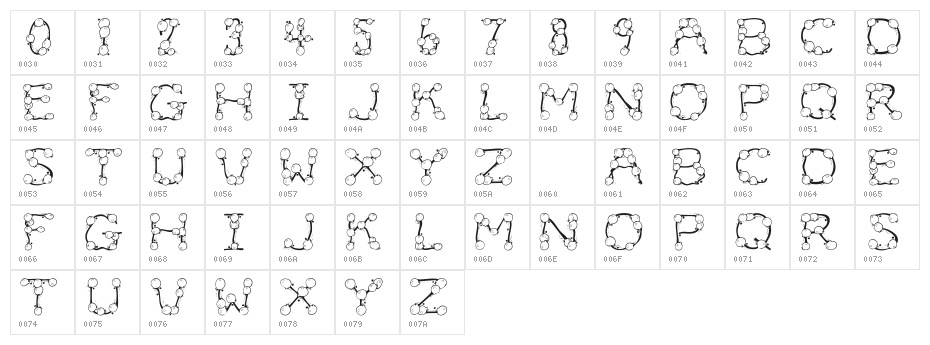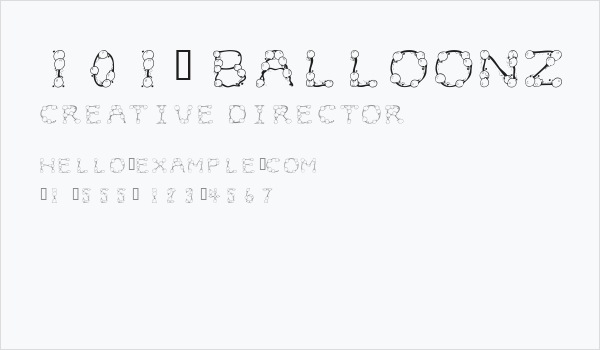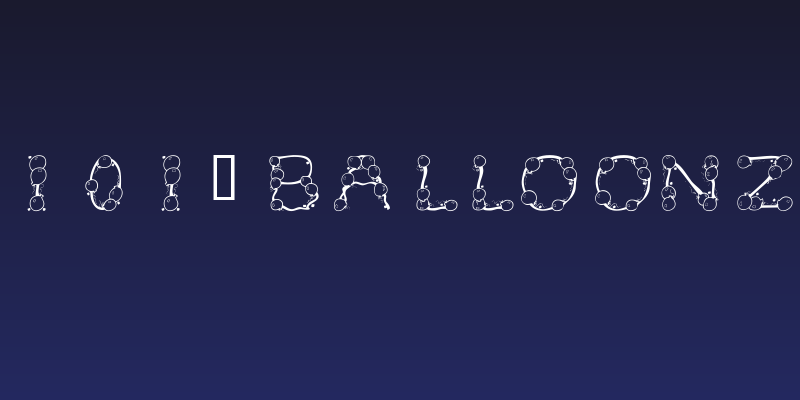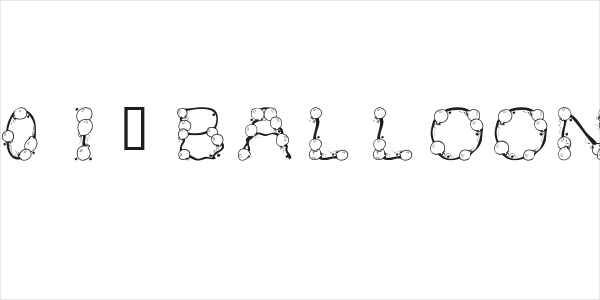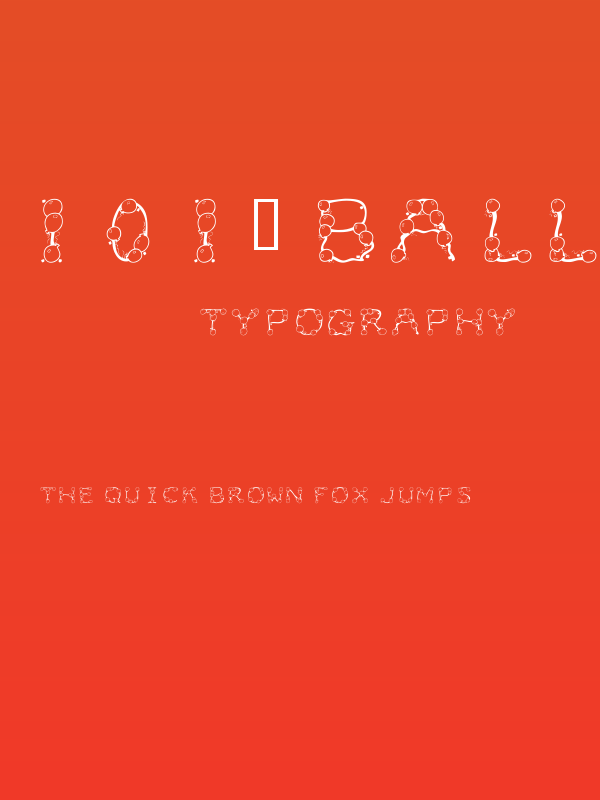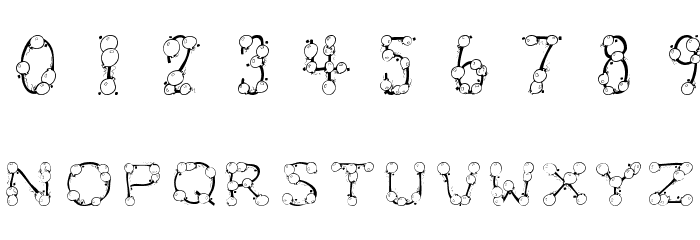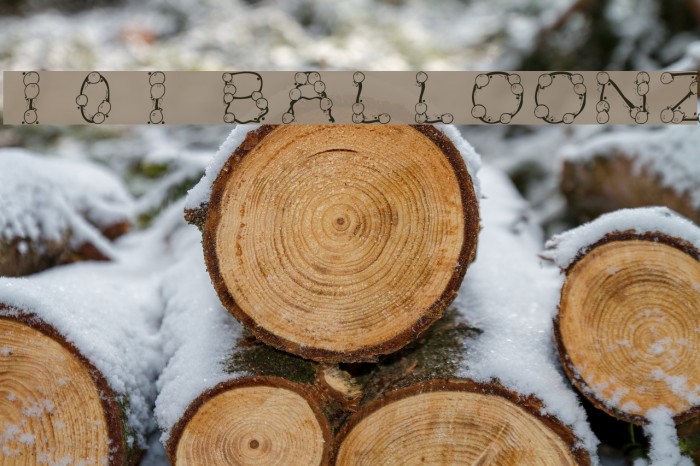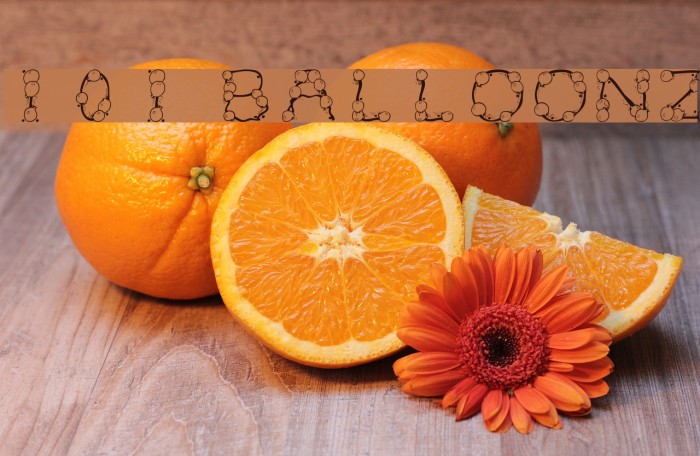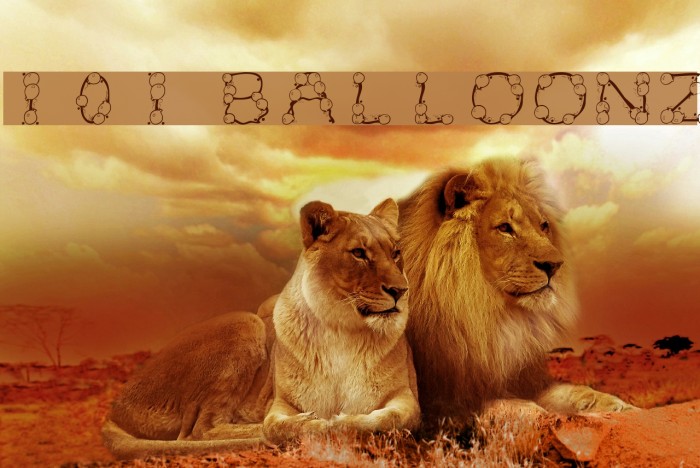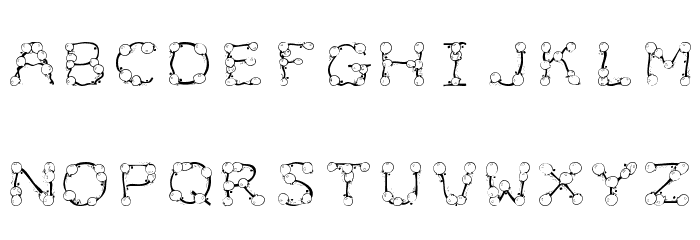
101! BalloonZ Font
101! BalloonZ Description
This playful and whimsical font features characters designed to resemble clusters of balloons. Each letter and number is composed of interconnected circular shapes, giving the impression of a festive and buoyant style. The font is characterized by its unique, decorative appearance, which makes it stand out in any design. The strokes are consistent in thickness, with a medium contrast that adds to the overall playful aesthetic. The spacing between characters is relatively normal, ensuring readability while maintaining its decorative charm. This font is perfect for projects that require a fun and lively touch, such as children's party invitations, playful branding, or any design that aims to evoke joy and celebration.
| Proposed Projects | Ideal for children's party invitations, playful branding, festive posters, and celebratory event materials. |